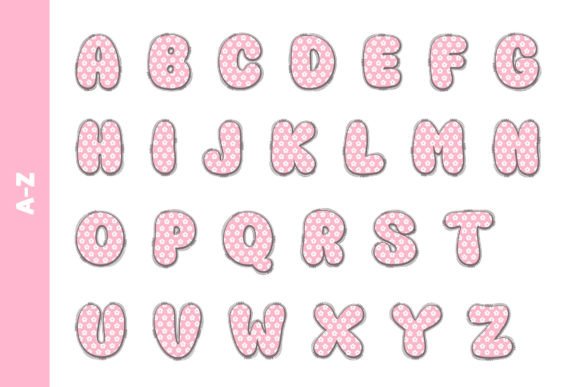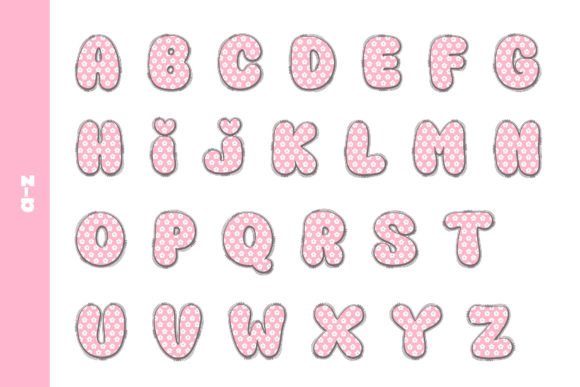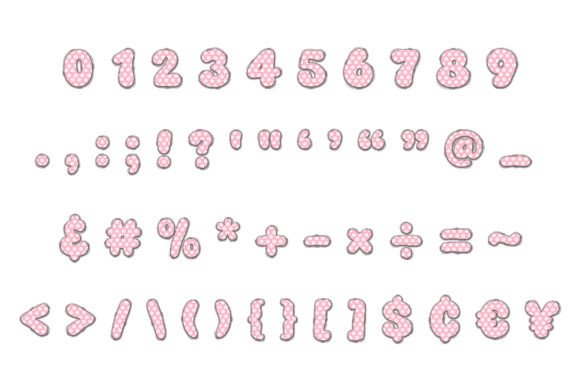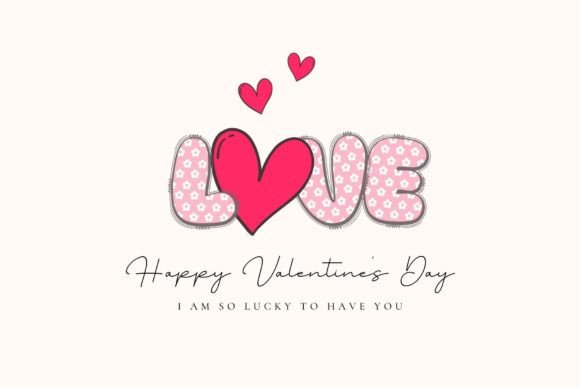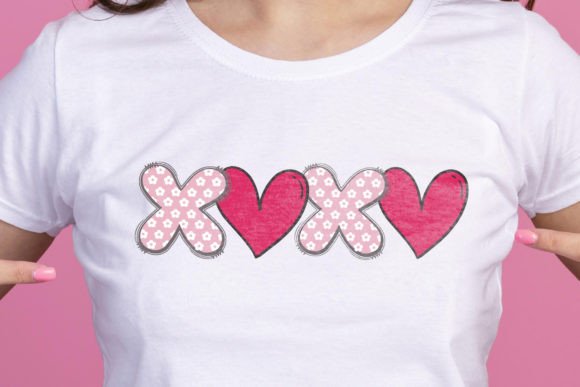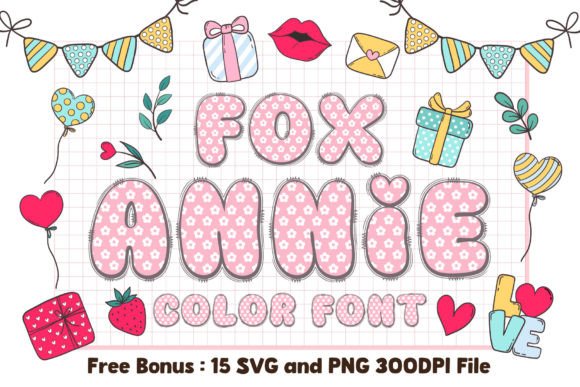
Introducing Fox Annie Font: The Cute and Fun Color Font for Your Creative Projects
Are you a designer, social media influencer, or crafty individual looking for a font that can add a touch of warmth and affection to your creations? Look no further than Fox Annie Font, a delightful and fun color font that’s perfect for crafting cute greeting cards, invitations, and more.
The Charm of Fox Annie Font
Fox Annie Font is a unique and charming color font that’s designed to bring a smile to your face. Its authentic feel and playful vibe make it an excellent choice for anyone looking to add a personal touch to their creative projects. Whether you’re creating greeting cards, invitations, social media posts, or stationery art, Fox Annie Font is sure to make your designs stand out.
As a designer or crafter, you know how important it is to have a font that can help you express your creativity and bring your ideas to life. Fox Annie Font is an excellent choice for anyone looking to add a touch of whimsy and fun to their designs. Its color font feature allows you to add an extra dimension to your creations, making them more visually appealing and engaging.
Use Fox Annie Font for:
- Gorgeous Invitations: Create beautiful and eye-catching invitations for special occasions like birthdays, weddings, and baby showers.
- Beautiful Stationery Art: Add a touch of elegance and sophistication to your stationery art with Fox Annie Font.
- Eye-Catching Social Media Posts: Make your social media posts stand out with Fox Annie Font’s playful and colorful vibe.
- Cute Greeting Cards: Craft adorable greeting cards that express affection and warmth with Fox Annie Font.
Why Choose Fox Annie Font?
So, why should you choose Fox Annie Font for your creative projects? Here are just a few reasons:
- Unique and Playful: Fox Annie Font has a unique and playful vibe that’s sure to capture the attention of your audience.
- Authentic Feel: Its authentic feel makes it perfect for creating designs that are personal and relatable.
- Color Font Feature: The color font feature allows you to add an extra dimension to your designs, making them more visually appealing.
Tips for Using Fox Annie Font
Here are a few tips for using Fox Annie Font in your creative projects:
- Experiment with Colors: Don’t be afraid to experiment with different colors and combinations to find the perfect look for your design.
- Mix and Match: Mix and match Fox Annie Font with other fonts to create a unique and visually appealing design.
- Keep it Simple: Keep your design simple and clean to allow Fox Annie Font to shine.
Fox Annie Font is a cute and fun color font that’s perfect for designers, crafters, and anyone looking to add a touch of warmth and affection to their creative projects. Its unique and playful vibe, authentic feel, and color font feature make it an excellent choice for creating gorgeous invitations, beautiful stationery art, eye-catching social media posts, and cute greeting cards. So, fall in love with Fox Annie Font and use it to bring your creative ideas to life!